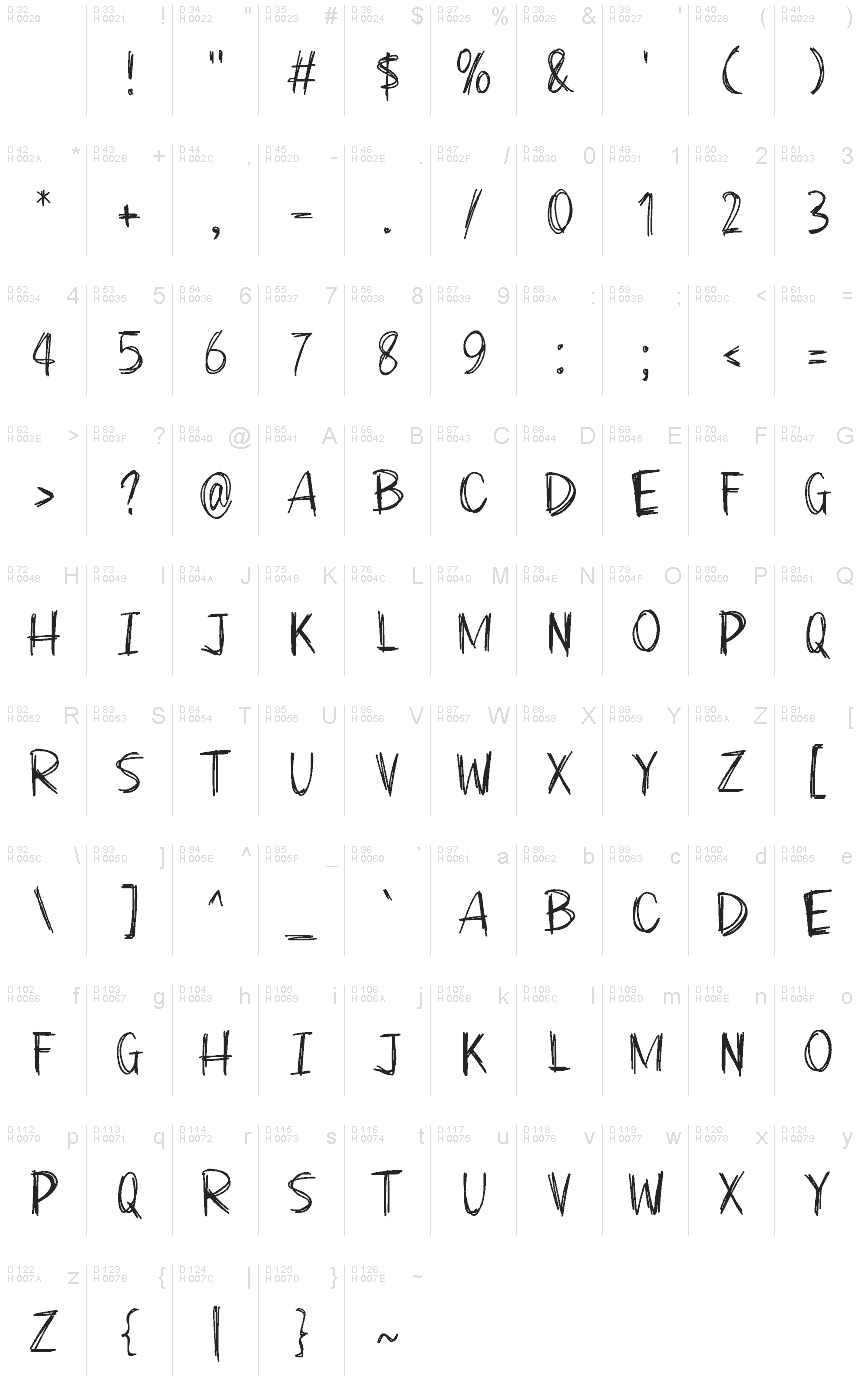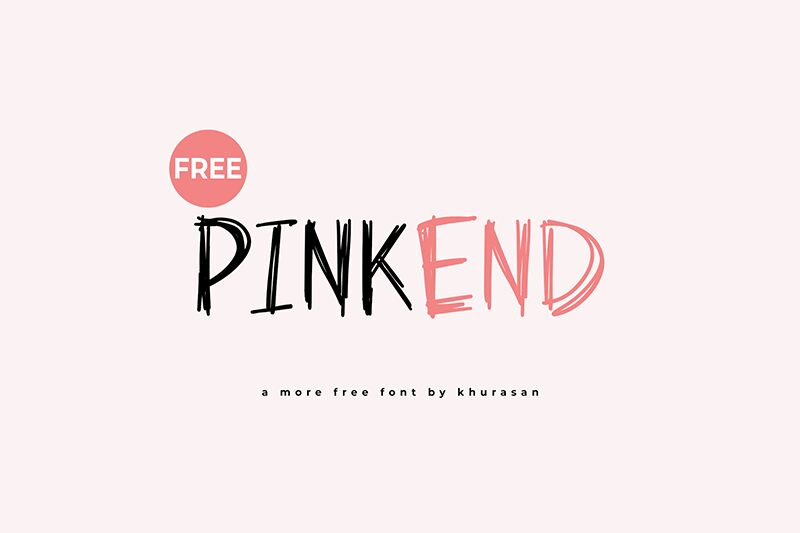
Pinkend
Pinkend font is a free script font designed by Khurasan with the always interesting trash style. Strokes of textured lines combine and translate into this energetic, expressive, and edgy font. Its handcrafted appearance sets it apart and makes it a great candidate for any project that needs an unconventional addition to draw attention.
Such projects can be music album covers, video game cover arts, vintage postcards, print on textiles fashion items such as t-shirts and mugs. Or head towards business designs such as branding concepts and logotypes. Feel free to use Pinkend for personal work as well; it will capture the eye in notes handwriting or craftwork on birthday cards or diaries.